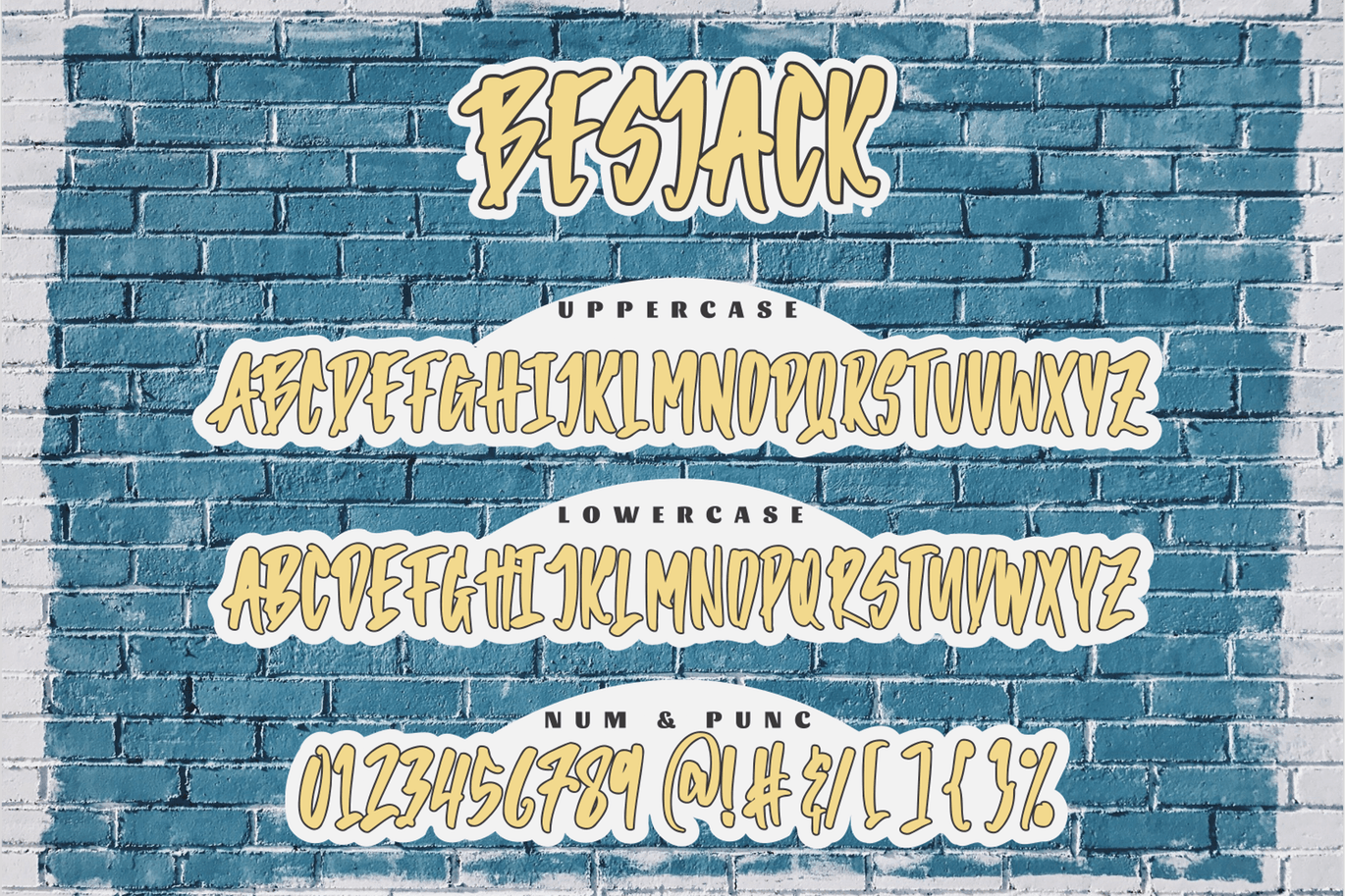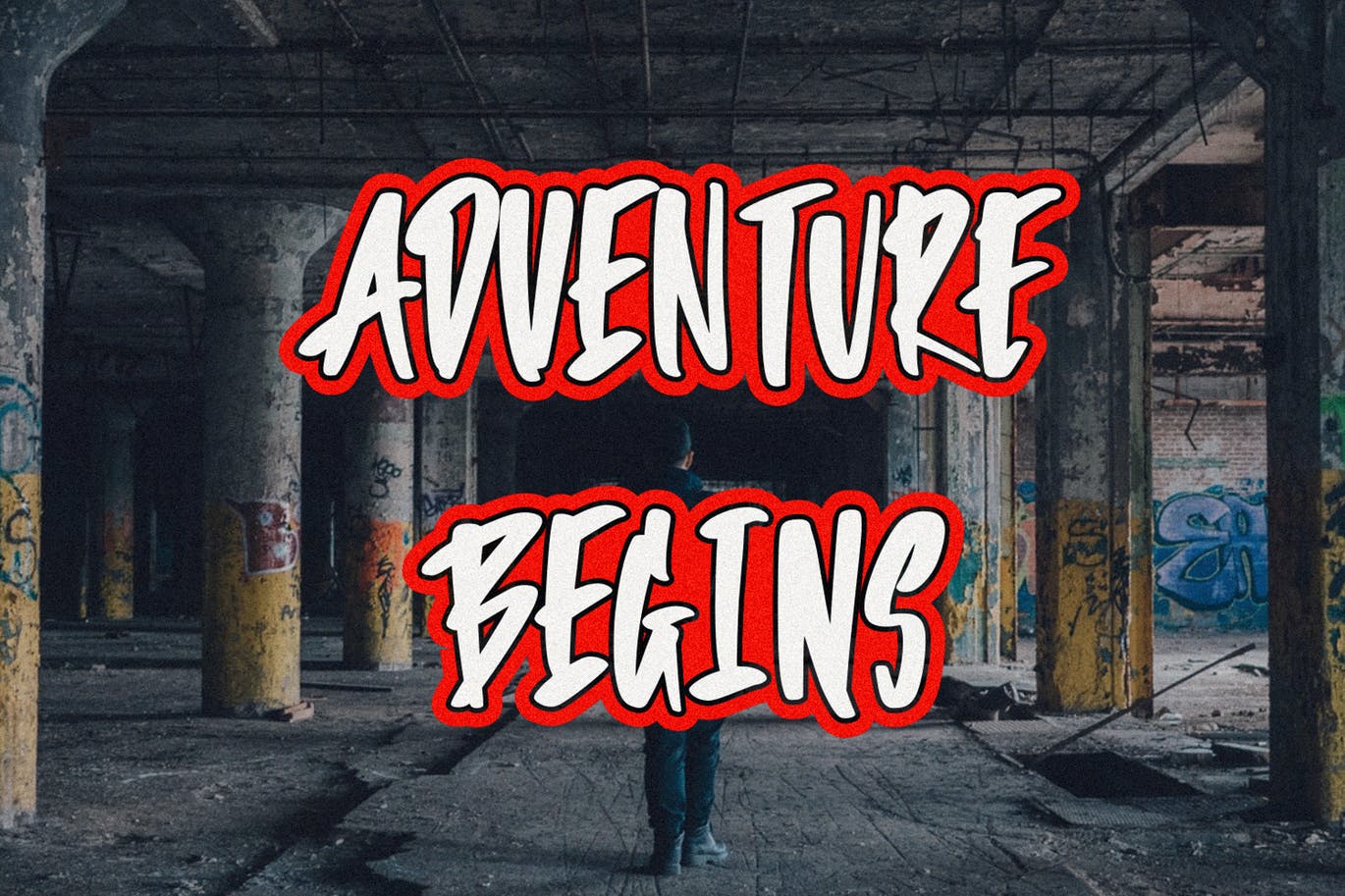
Besjack – The Graffiti Font
Besjack – The Graffiti Font, every single letter has been carefully crafted to make your text looks beautiful. it’s perfect for logos, name cards, magazine layouts, invitations, headers, or even large-scale artwork.
- Besjack font including upper & lowercase characters, numerals and more of symbols.
- Support International Character